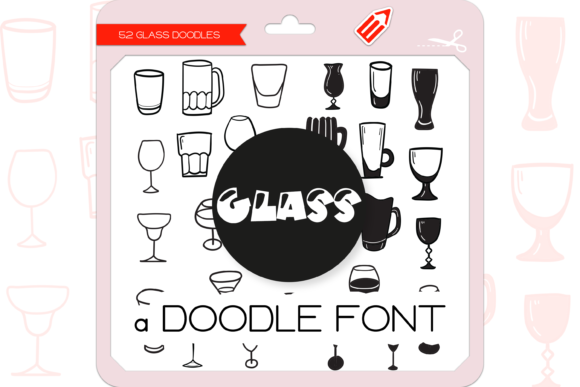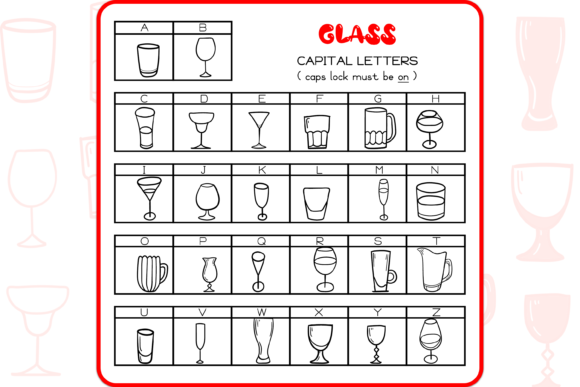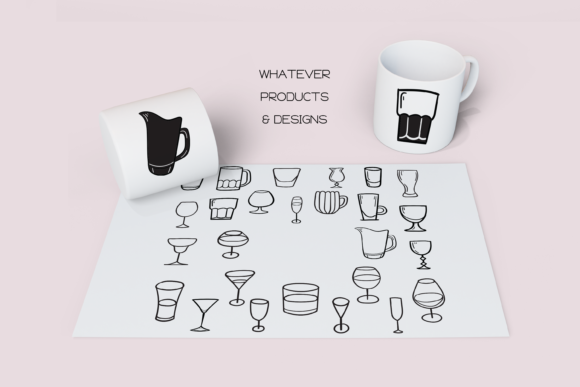
About The Glass Font
Absolutely! “The Glass” is a unique and cute dingbats font that contains 52 hand-drawn doodles of glasses. Adding this font to your creative ideas will certainly make your arts look outstanding!
With its collection of hand-drawn glass doodles, “The Glass” font offers a wide range of designs that can enhance your creative projects. Whether you’re working on posters, social media graphics, invitations, or any other design, these cute and unique glass doodles can add a touch of creativity and visual interest to your artwork.
Each of the 52 hand-drawn glass doodles in “The Glass” font is distinct and can be used individually or combined to create eye-catching compositions. From wine glasses and tumblers to champagne flutes and cocktail glasses, the variety of glass designs allows you to choose the perfect element to match your creative vision.
Consider using “The Glass” font in various ways to elevate your arts. You can incorporate the glass doodles as decorative elements, icons, or even use them as standalone illustrations to add personality and flair to your designs. Experiment with different sizes, rotations, and arrangements to create unique compositions that reflect your style.
The cute and unique nature of “The Glass” font makes it ideal for a variety of projects. Whether you’re designing for beverage-related content, creating themed graphics, or simply want to add a playful touch to your artwork, this font will be a great addition to your creative toolkit.
Don’t hesitate to play with colors, patterns, and textures when using “The Glass” font. You can customize the doodles to match your project’s color scheme or experiment with different styles to create visually appealing designs.
In conclusion, “The Glass” is a unique and cute dingbats font that contains 52 hand-drawn glass doodles. Incorporating this font into your creative ideas will make your arts look outstanding by adding distinctive and charming glass designs. Whether you’re working on posters, social media graphics, or other projects, “The Glass” font will bring a touch of creativity and visual interest to your artwork. Embrace the versatility of the glass doodles and let your creativity shine to create outstanding and captivating designs.